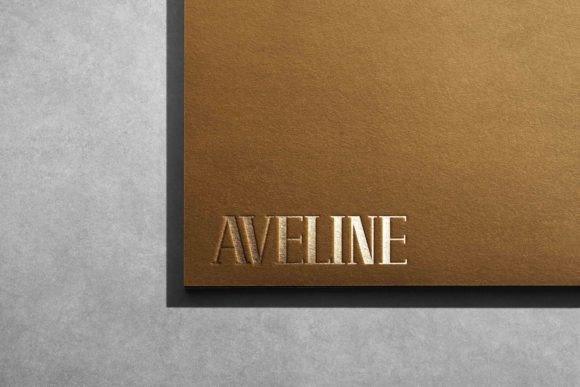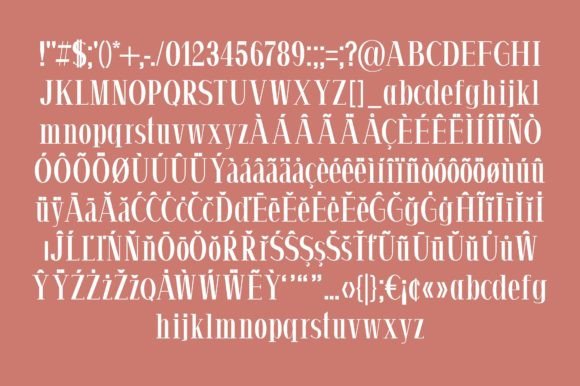
The Elegance of Luxury: Unveiling the Aveline Font
Have you ever found yourself staring at a beautifully designed perfume bottle, mesmerized by the intricate patterns and luxurious typography? That’s the magic of the Aveline Font, a feminine and elegant typeface designed to evoke the essence of high-end luxury.
Created with the goal of crafting delicate glyphs and high contrast within each skeleton, the Aveline Font is the perfect addition to any designer’s toolkit. Whether you’re working on packaging design, fashion design, or social media posts, this typeface is sure to elevate your creations and leave a lasting impression.
What makes the Aveline Font so valuable to designers? Its ability to convey sophistication and glamour, making it an ideal choice for brands that want to exude luxury and refinement. So why not give it a try and experience the awesome results for yourself?
Aveline Font Key Features
- Font Family: Aveline is a serif font family designed for body text, offering a classic and elegant look.
- Unique Characteristics: Features a unique combination of traditional serif typography and modern design elements, making it suitable for various design projects.
Aveline Font Review
As a designer, I’ve had the chance to work with the Aveline font, and I must say it’s a mixed bag. Here are my thoughts.
- The Aveline font is incredibly versatile, suitable for a wide range of design projects, from body text to display typography.
- The font’s elegant, refined feel makes it perfect for creating a sophisticated and professional look.
- The character set is comprehensive, covering a wide range of languages and special characters.
- The font’s legibility is excellent, making it easy to read, even at smaller font sizes.
- The font may be too elegant for some projects, making it less suitable for more playful or informal designs.
- The font’s lack of bold weights may limit its use in certain contexts, such as headings or titles.
Overall, I think the Aveline font is a solid choice for designers who want a high-quality, professional font. While it may not be the best fit for every project, it’s definitely worth considering for those looking for a sophisticated, elegant look.
Tips for Getting the Most Out of Aveline Font
To get the most out of Aveline font, try the following:
- Use it for titles and headings to add a touch of elegance.
- Combine it with other fonts for a unique and creative look.
- Experiment with different font sizes and colors to find the perfect balance.
Aveline font is commonly used for:
- Editorial and design projects.